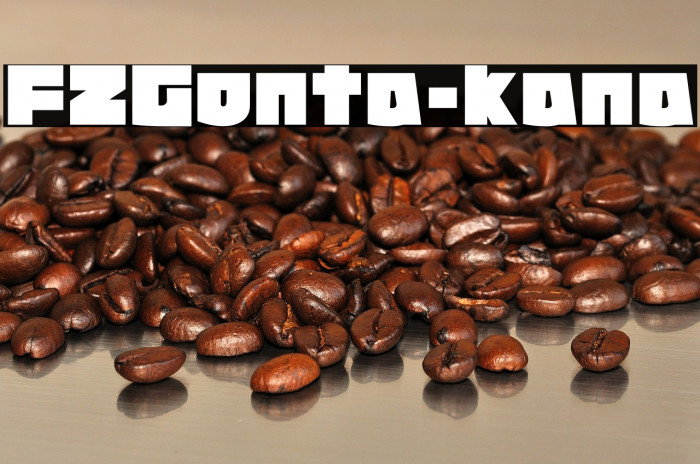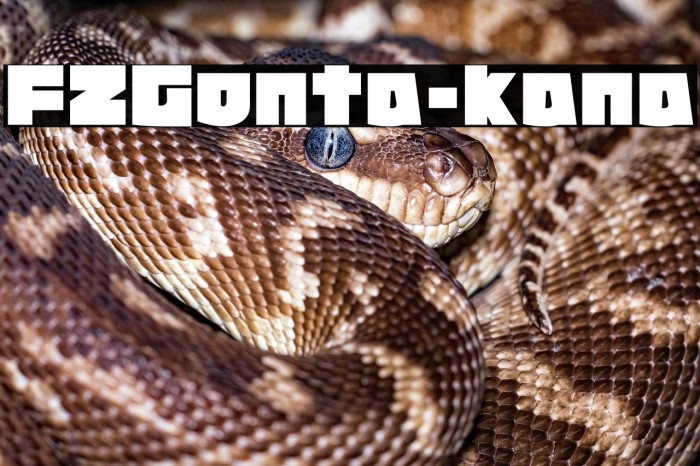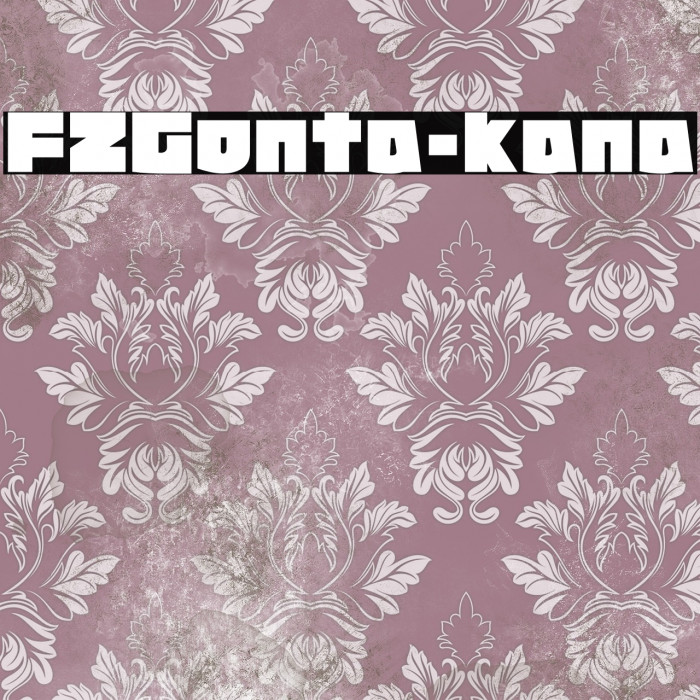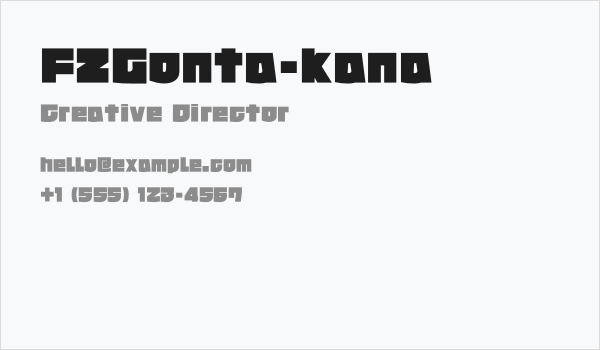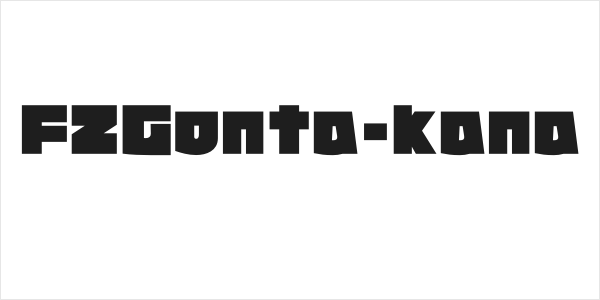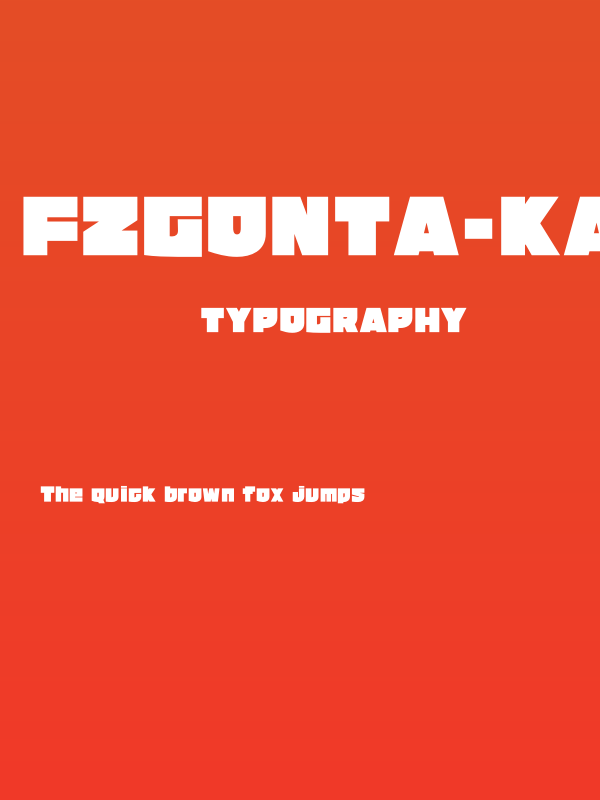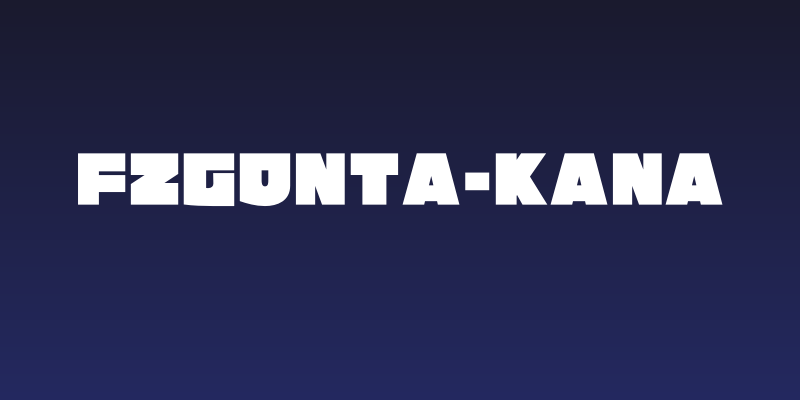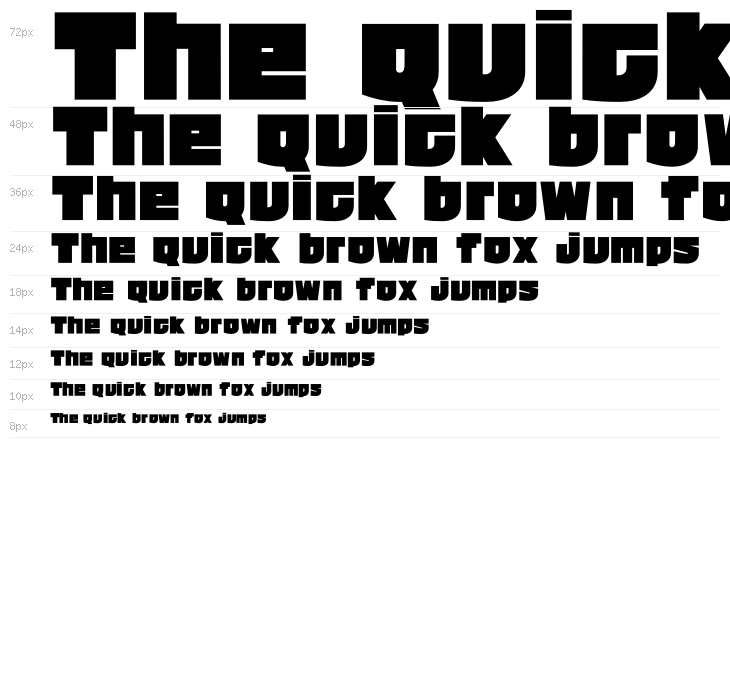
FZGonta-kana Font
FZGonta-kana Description
This font exhibits a bold and striking appearance with its thick, blocky characters. The letters are uniformly wide, creating a strong visual impact. The design features sharp angles and straight lines, giving it a modern and assertive look. The uppercase and lowercase letters maintain a consistent style, while the numbers and special characters complement the overall aesthetic. The font's heavy weight and geometric shapes make it ideal for attention-grabbing headlines and titles.
| Proposed Projects | Ideal for posters, logos, and branding materials that require a strong visual presence. |